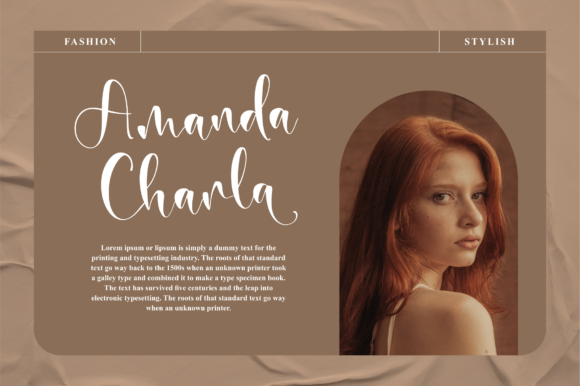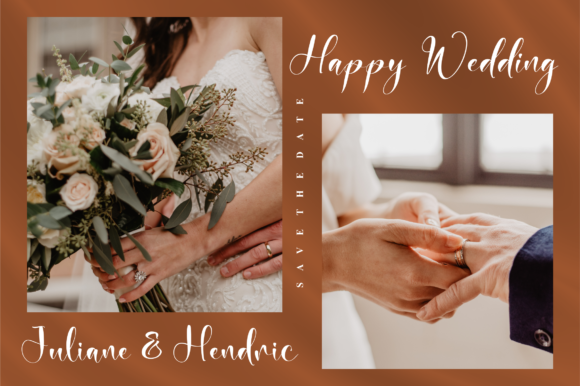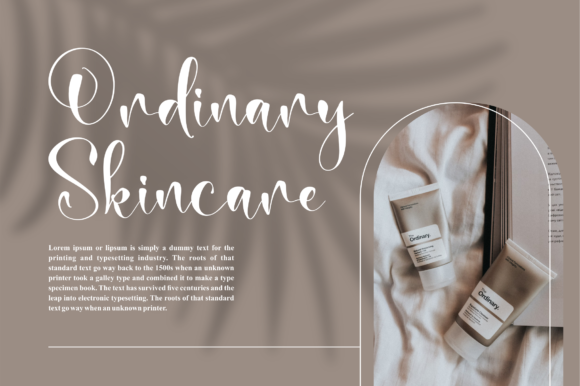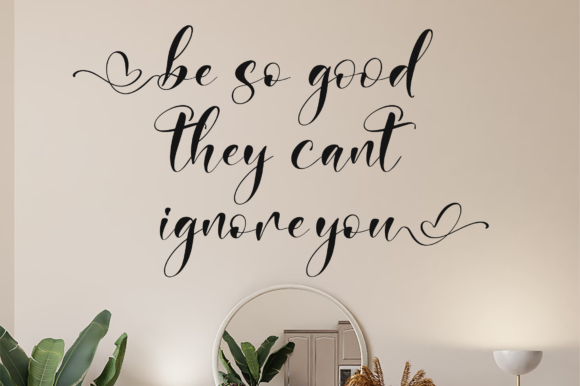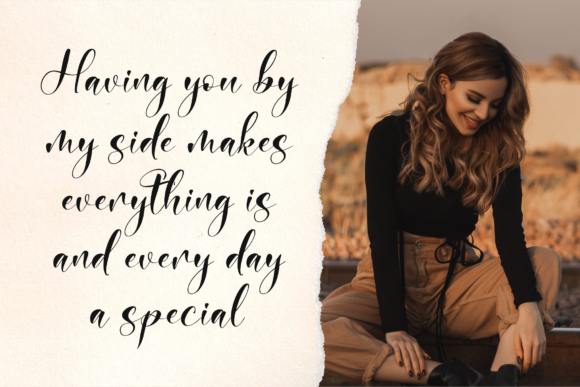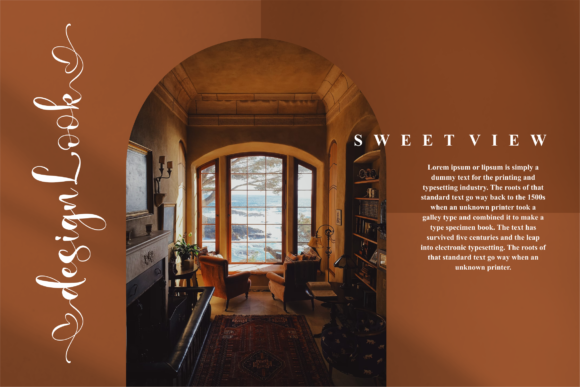
Discover the Elegance of Calista Font: A Beautiful Script Font for Stunning Designs
Are you a designer or crafter looking for a unique and elegant script font to elevate your designs? Look no further than Calista Font, a beautiful and distinct script font that is sure to capture your heart. With its stunning style and versatility, Calista Font is the perfect choice for creating gorgeous designs that stand out from the crowd.
What Makes Calista Font So Special?
Calista Font is a beautifully crafted script font that boasts a distinct style, making it perfect for designers and crafters who want to add a touch of elegance to their work. Its unique design features flowing lines, intricate swashes, and a range of glyphs that can be used to create stunning text designs. Whether you’re working on a branding project, creating social media graphics, or designing a wedding invitation, Calista Font is sure to impress.
One of the standout features of Calista Font is that it is PUA (Private Use Area) encoded. This means that you can access all the glyphs and swashes with ease, giving you complete creative control over your designs. With PUA encoding, you can easily insert glyphs and swashes into your text, creating beautiful and intricate designs that showcase your creativity.
Uses for Calista Font
Calista Font is an incredibly versatile font that can be used for a wide range of design projects. Here are just a few ideas to get you started:
- Branding and Logo Design: Use Calista Font to create a stunning logo or brand identity that showcases your business’s unique personality.
- Social Media Graphics: Create eye-catching social media graphics, such as Facebook posts, Instagram stories, and Twitter headers, using Calista Font.
- Wedding Invitations and Stationery: Add a touch of elegance to your wedding invitations, stationery, and other paper goods with Calista Font.
- Packaging Design: Use Calista Font to create beautiful packaging designs that stand out on store shelves.
Tips for Using Calista Font
To get the most out of Calista Font, here are a few tips to keep in mind:
- Experiment with Different Sizes: Calista Font looks great in a range of sizes, from small and delicate to large and bold. Experiment with different sizes to find the one that works best for your design.
- Play with Swashes and Glyphs: Take advantage of Calista Font’s PUA encoding and experiment with different swashes and glyphs to add visual interest to your designs.
- Pair with Other Fonts: Calista Font pairs beautifully with other fonts, such as sans-serif fonts and serif fonts. Experiment with different pairings to find the one that works best for your design.
Calista Font is a beautiful and elegant script font that is sure to capture your heart. With its distinct style, PUA encoding, and versatility, it’s the perfect choice for designers and crafters who want to create stunning designs. Whether you’re working on a branding project, creating social media graphics, or designing a wedding invitation, Calista Font is sure to impress. So why wait? Fall in love with Calista Font today and start creating gorgeous designs that showcase your creativity!